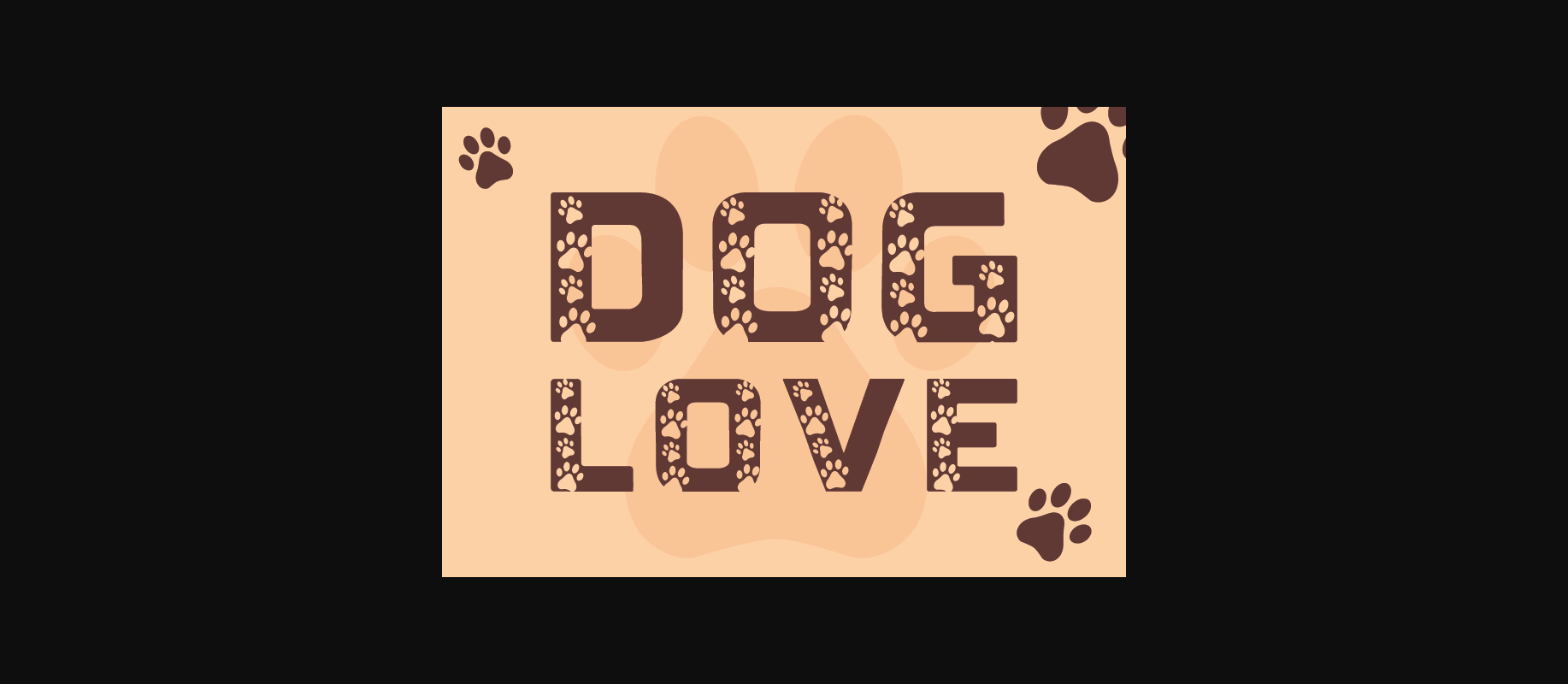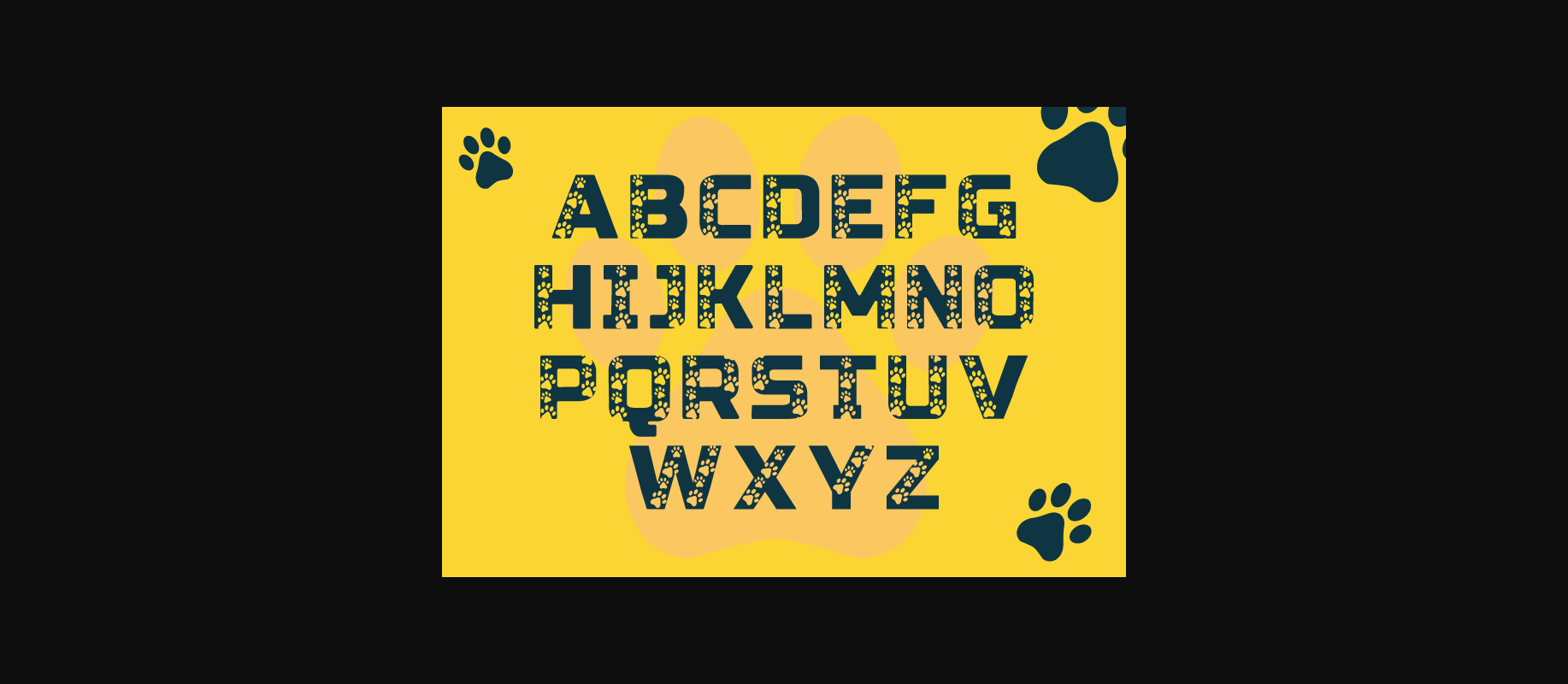
About Dog Love Font
Introducing Dog Love Font – a vibrant blend of simplicity and contemporary style. This modern, decorative typeface shines in its versatility, proving an impeccable fit for ambitious logos, innovative brand designs, striking headlines, and various other creative endeavors. Unleash this font into your projects with conviction and let its exceptional performance leave you in awe of the transformative outcomes achieved.